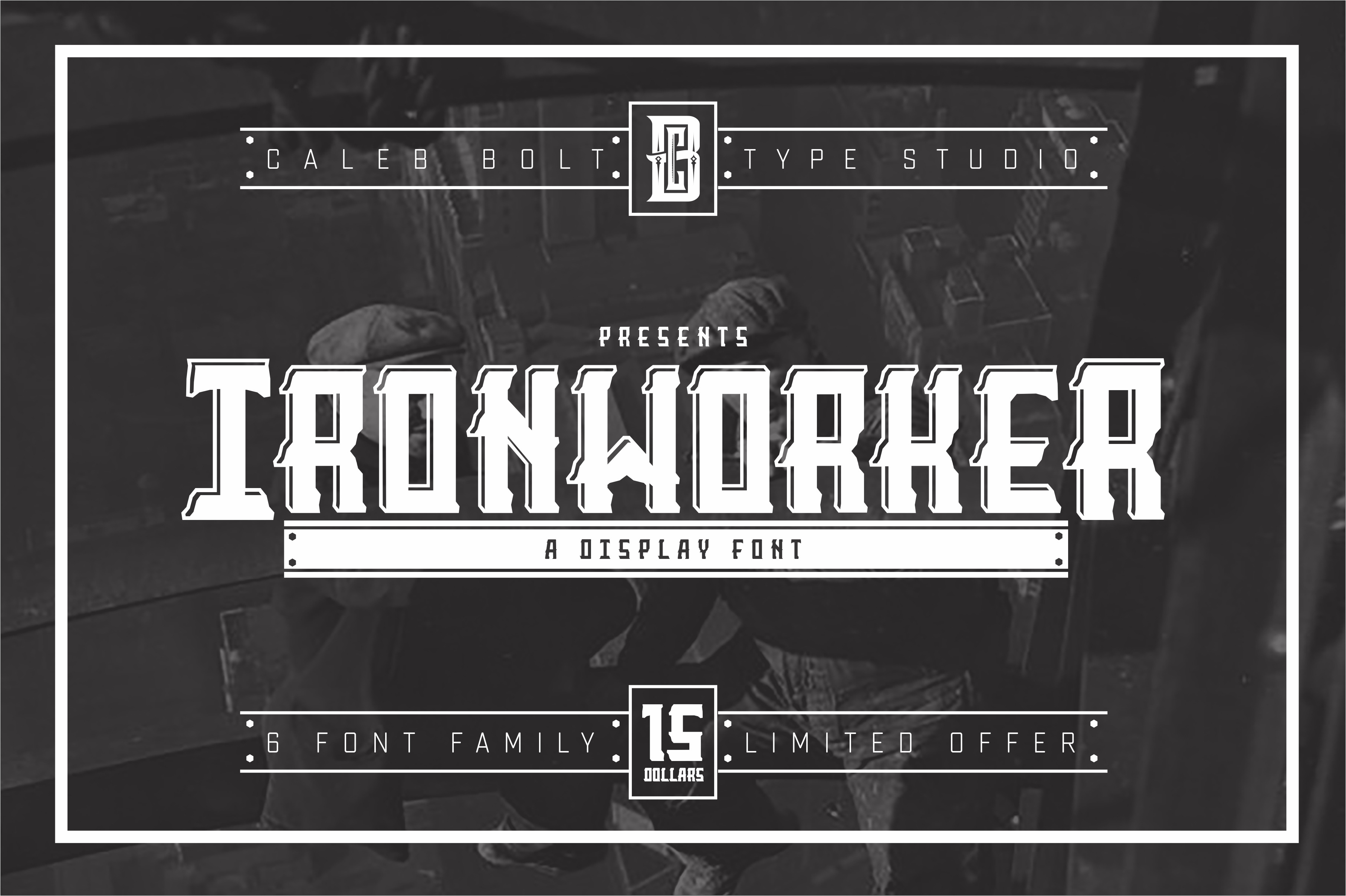
Ironworker Display font
A bold display font for all those projects that demand a font be rugged and manly. Six different variations all included for an introductory price of $15.